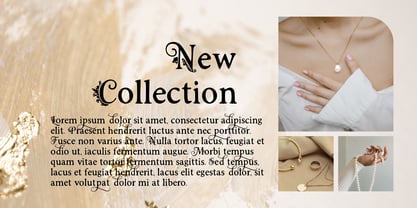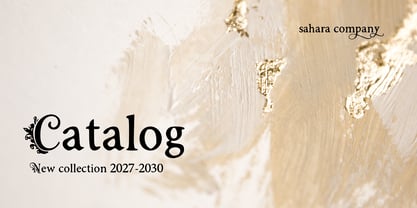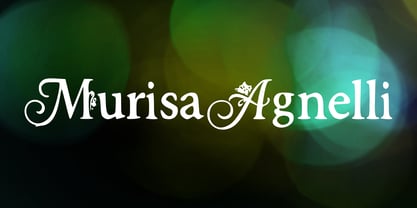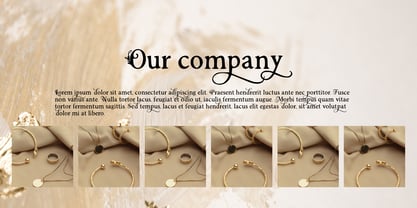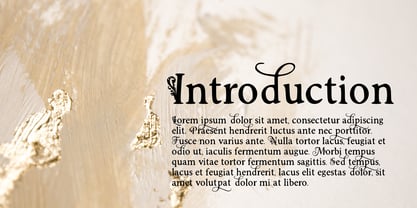
Murisa Agnelli
La familia tipográfica Murisa Agnelli fue diseñada por Lili Sadili y publicada por Murisa Studio. Murisa Agnelli contiene 2 estilos y opciones de paquete familiar. Más información sobre esta familia
Murisa Agnelli – Elegant Floral Calligraphy & Display Font
Elevate your design projects with Murisa Agnelli, a captivating decorative font that combines classic calligraphy, delicate floral swashes, and sophisticated script elements. Designed with ornate capital letters and smooth, flowing lowercase characters, this font brings a luxurious, romantic, and vintage charm to any creative artwork.
Whether you are crafting luxury brand identities, wedding invitations, product packaging, editorial layouts, or social media graphics, Murisa Agnelli ensures your text stands out with grandeur and grace.
🌟 Key Features:
• 🔤 Complete Character Set: Full Uppercase, Lowercase, Numerals, and Standard Punctuation.
• 🌿 Ornate Swashes & Floral Capitals: Intricate decorative flourishes crafted into every uppercase letter.
• 🌍 Eastern European & Multi-Language Support: Full support for Extended Latin diacritics and Central/Eastern European characters (Polish, Czech, Hungarian, Romanian, Slovak, and more).
• 🖋️ Smooth Curves & High Detail: Optimized for both high-resolution printing and sharp digital displays.
• 💡 Best Suited For: Logos, Editorial Covers, Monograms, Wedding Stationery, Beverage Labels, and Quote Postcards.
Bring timeless elegance and international versatility to your typography collection today with Murisa Agnelli !